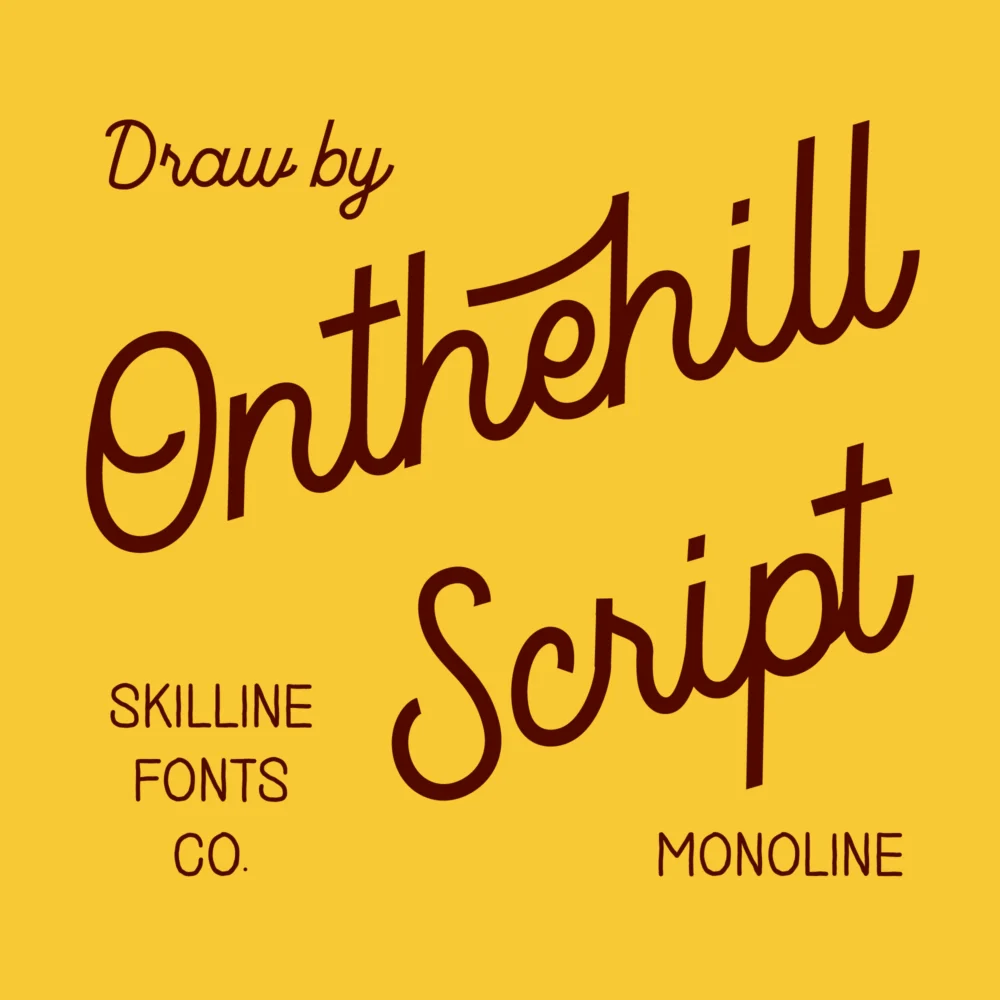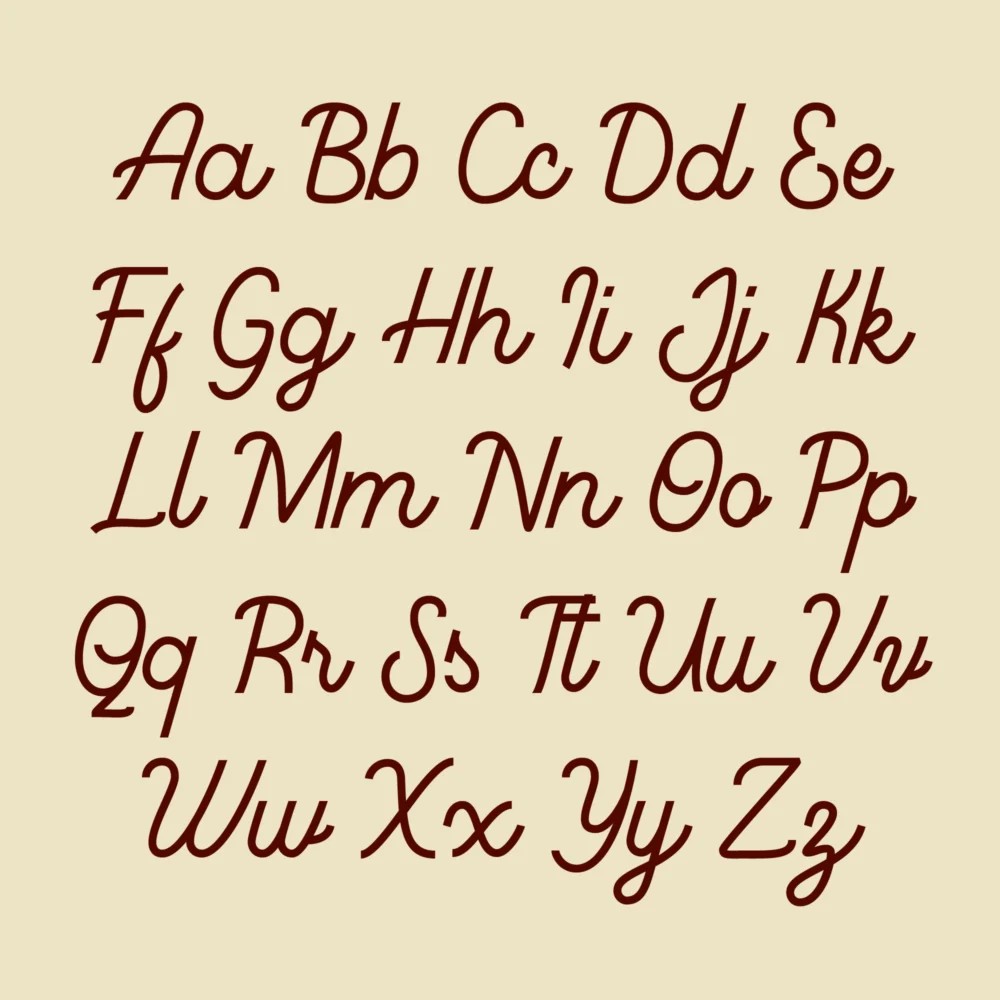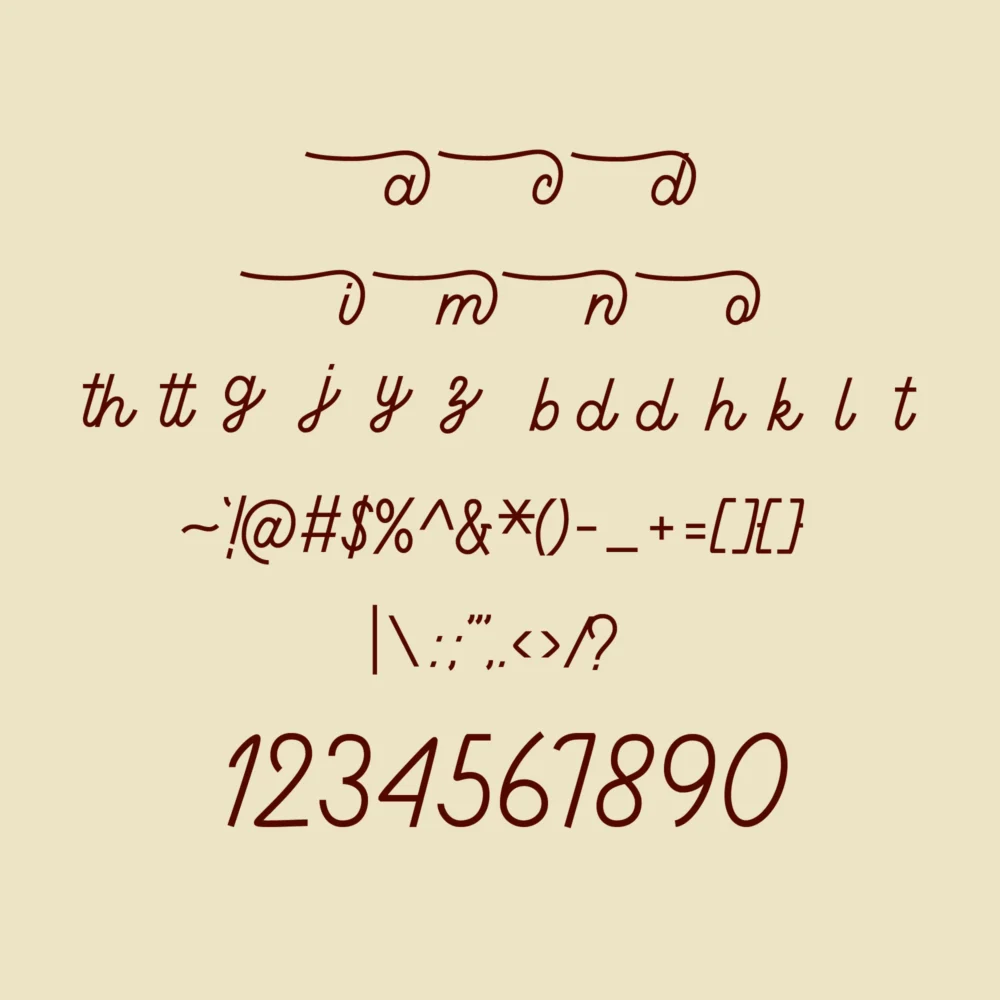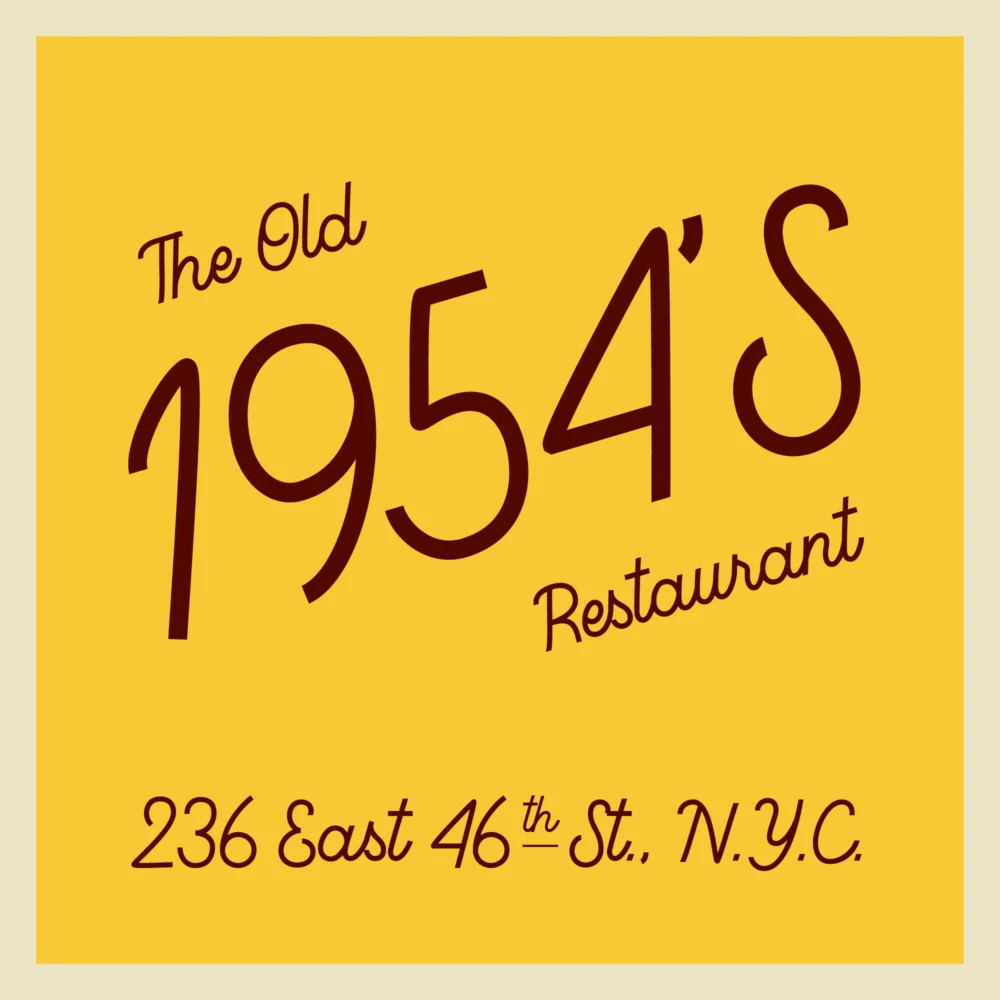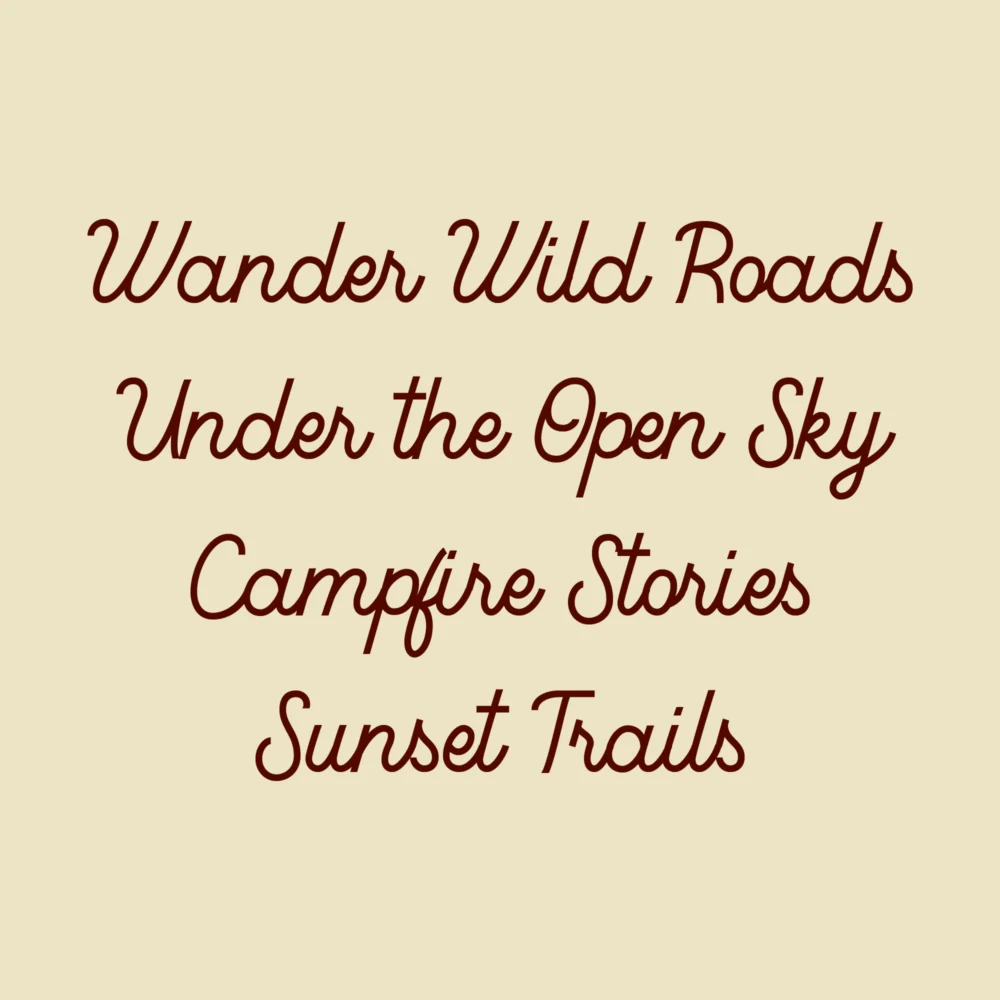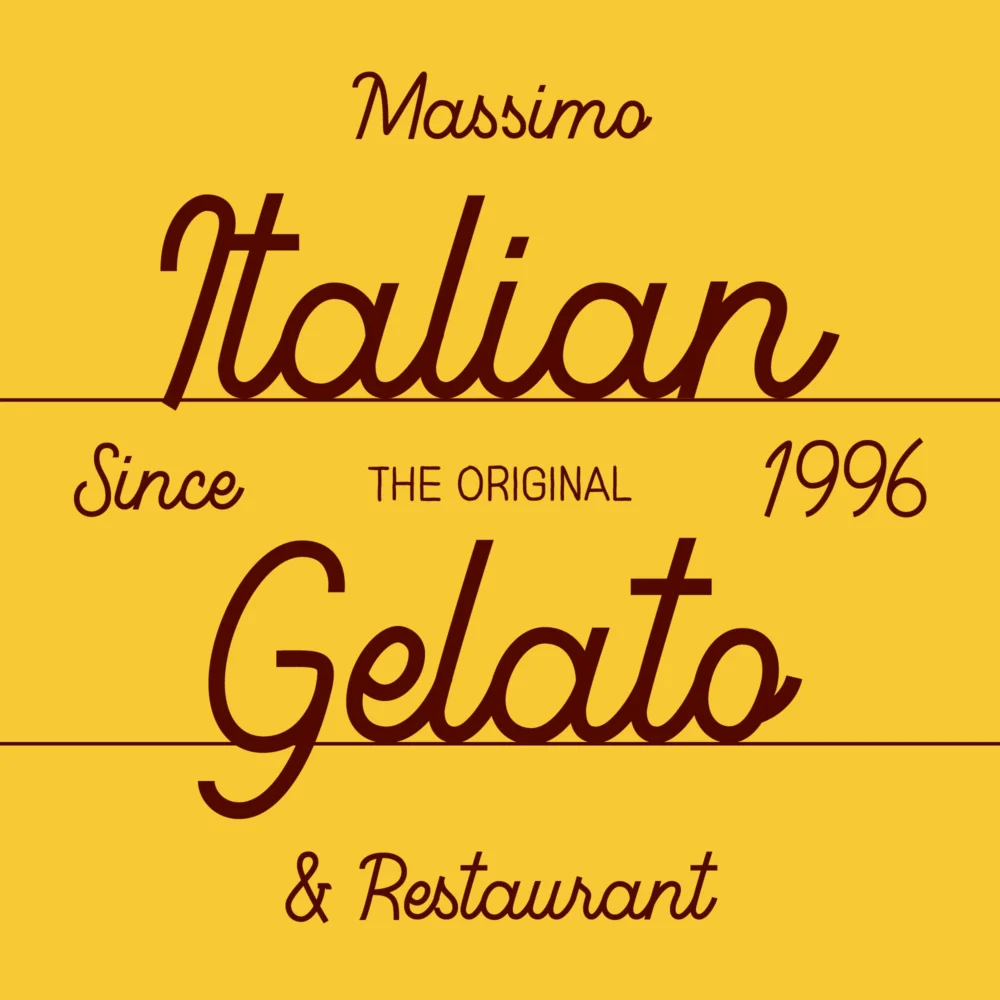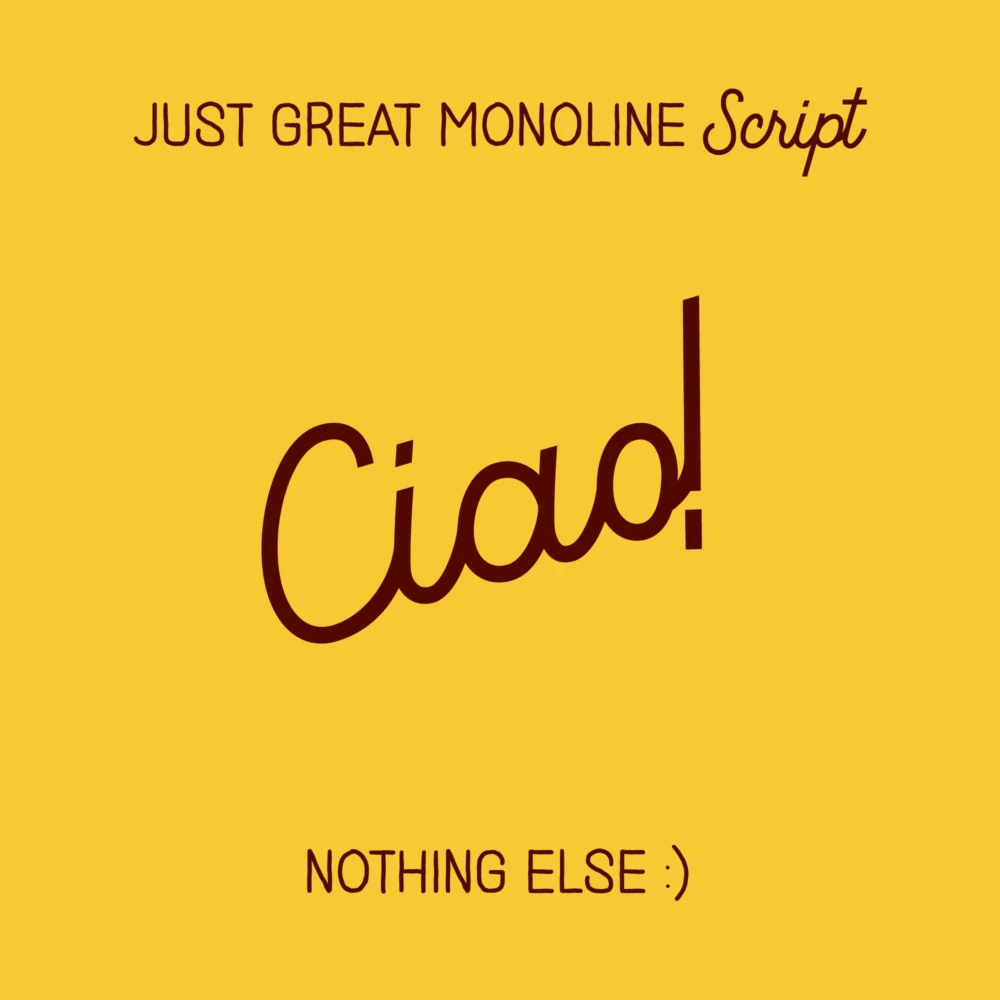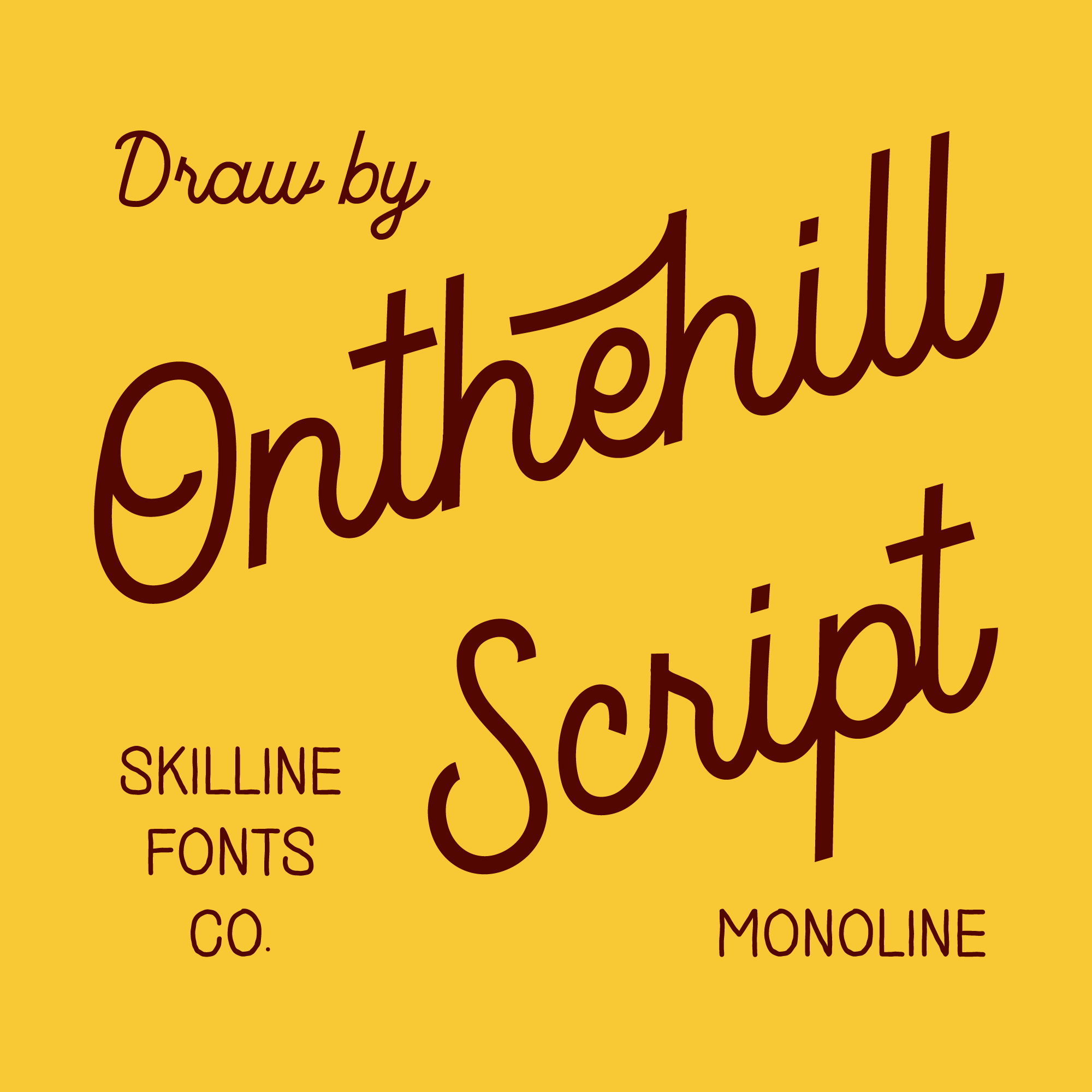
Onthehill is a smooth monoline handwritten typeface inspired by mid-century lettering and classic sign painting. Featuring clean curves and consistent line weight, it delivers a friendly, authentic feel with a polished, modern touch, balancing clarity, warmth, and character. Designed to be bold enough for headlines yet elegant enough for body text, Onthehill offers a refined handmade look that works seamlessly across both print and digital applications.
- Monoline Handwritten Style
- Standard Ligatures & Stylistic Alternates
- Full Numerals & Punctuation